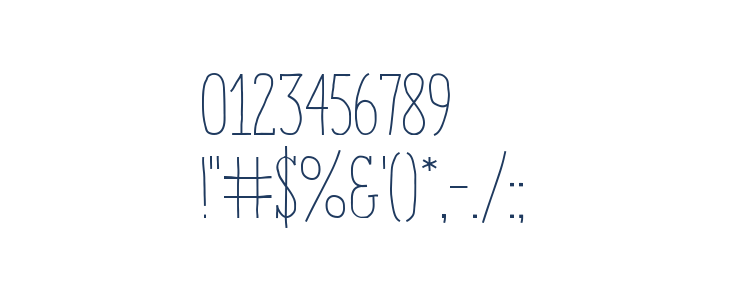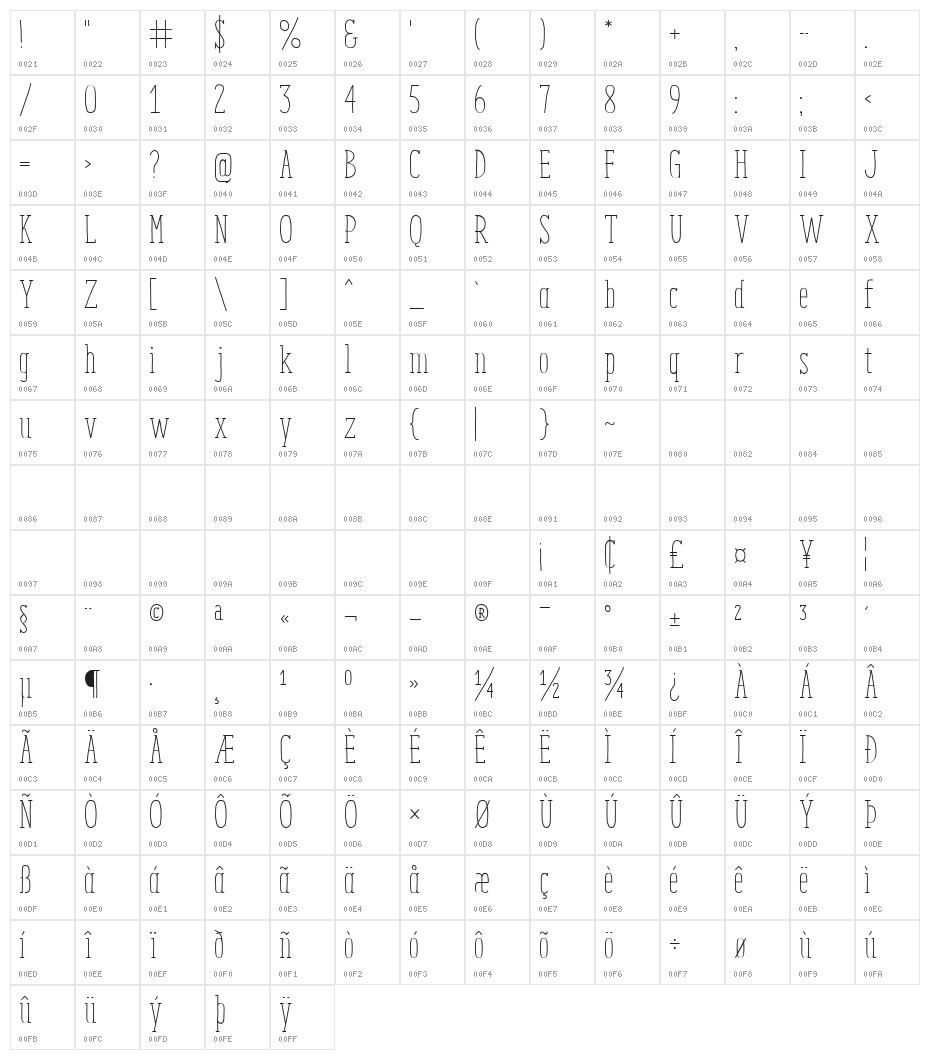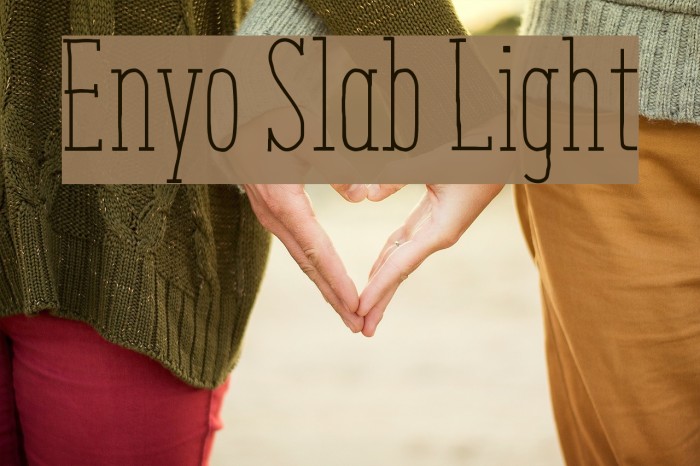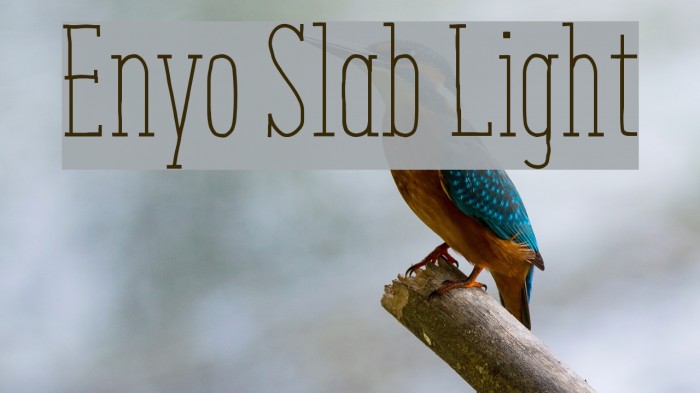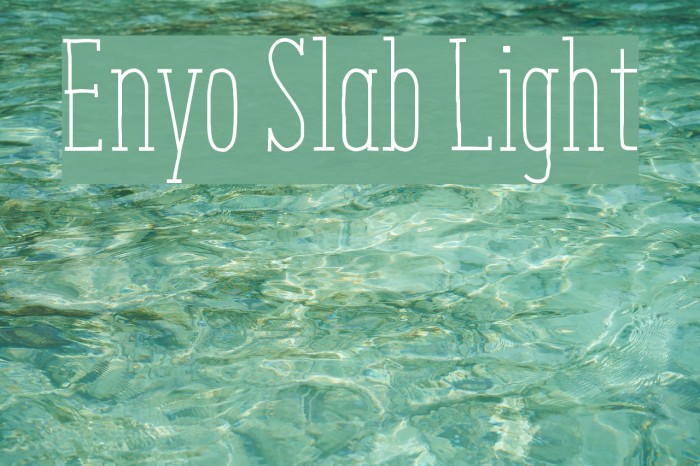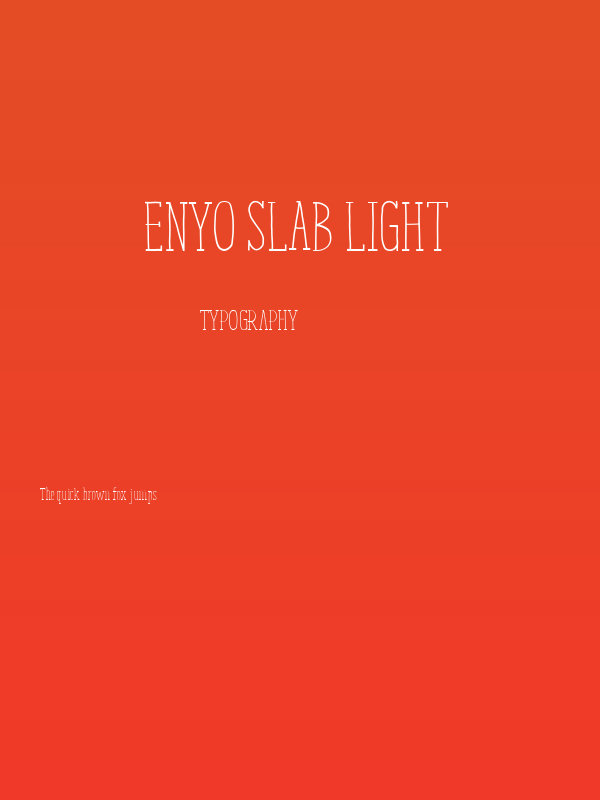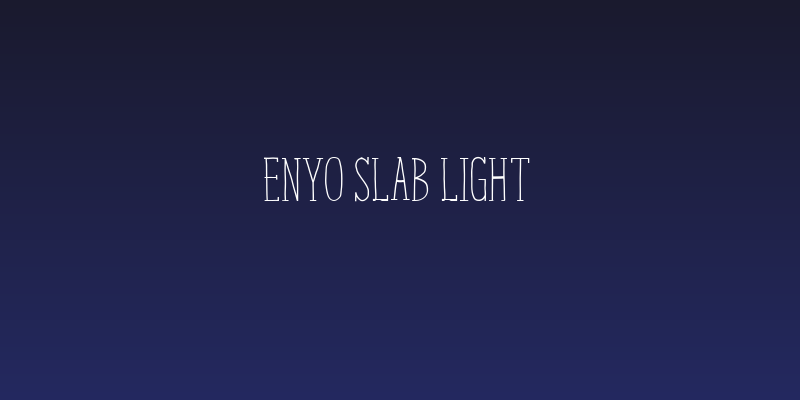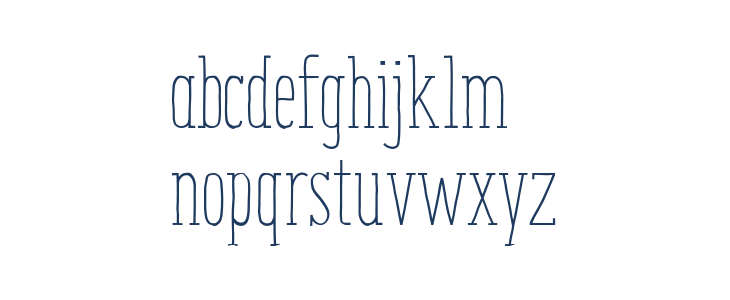
Enyo Slab Light Font
Enyo Slab Light Description
This font features a refined and elegant slab serif style with thin, elongated strokes that give it a light and airy appearance. The characters are well-defined with a consistent stroke width, providing a clean and modern look. The uppercase letters are tall and commanding, while the lowercase letters maintain a harmonious balance with their slightly rounded forms. Numbers and special characters are crafted with the same attention to detail, ensuring readability and style. The overall design is sophisticated, making it suitable for a variety of design applications.
| Proposed Projects | Ideal for editorial design, branding projects, elegant invitations, and sophisticated advertising campaigns. |